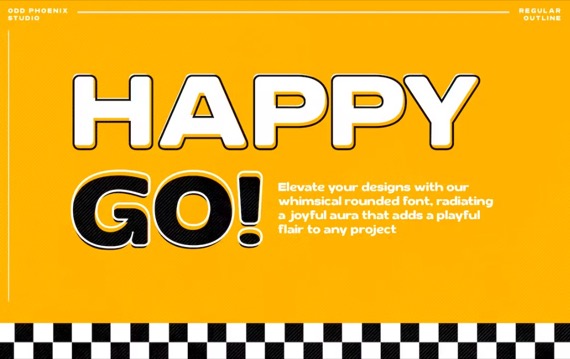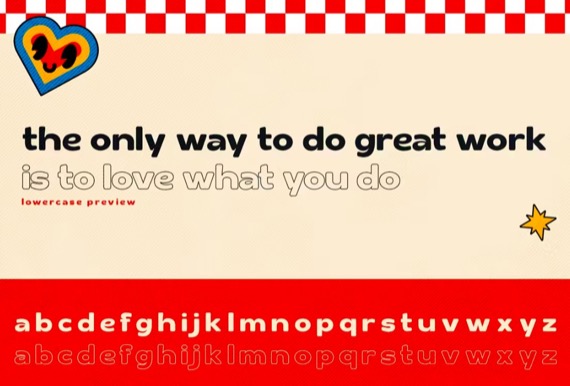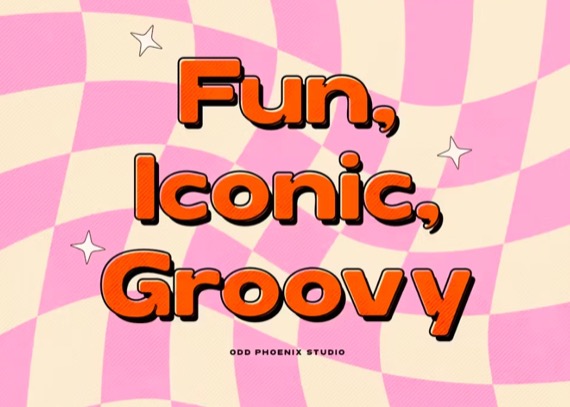
Introducing Happy Go is a chic and elegant sans serif font with a playful and delightful spirit in every character. Our playful rounded font that breathes life into designs with joyous flair!
Happy Go Sans Serif Font